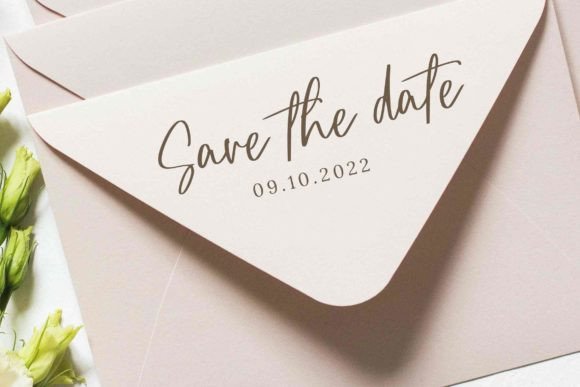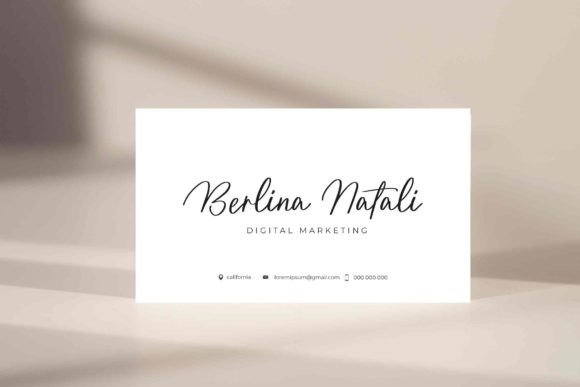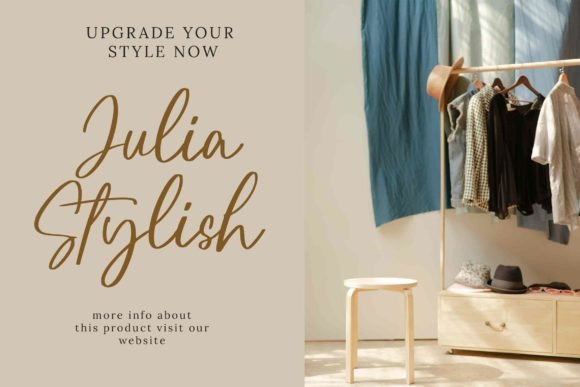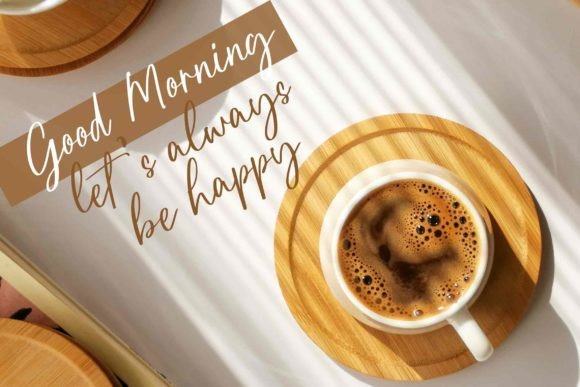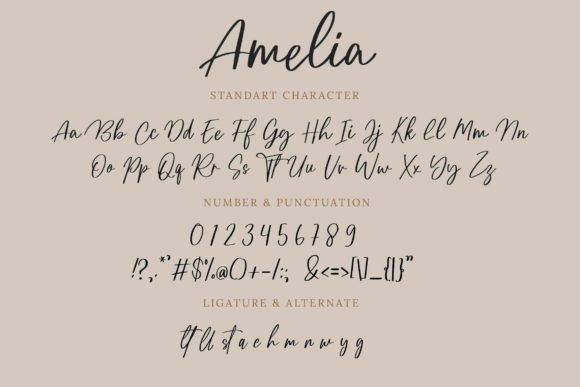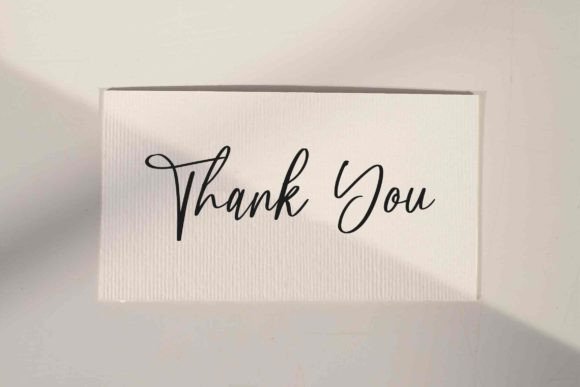
Amelia Font
About Amelia Font
Amelia is a neat and casual handwritten script font that blends charm, clarity, and modern elegance. With its smooth curves and friendly design, this font brings a relaxed yet polished feel to any creative project. Whether you’re designing for personal or professional use, Amelia will easily adapt and enhance your message with grace.
It mimics real handwriting with a clean baseline, making it both authentic and highly legible. Amelia’s style is casual but never careless—perfect for designers who want a balance between expressive personality and functional readability.
Versatile for All Creative Uses
Amelia’s adaptable nature makes it suitable for a wide range of applications. Whether you’re crafting digital content or printed materials, this font will give your project a personal, warm touch.
Here are a few great use cases:
• Wedding Invitations & Save-the-Date Cards – Soft, romantic, and refined
• Social Media Graphics & Quotes – Eye-catching and engaging
• Branding & Logo Design – Adds a signature, handwritten flair
• Business Cards & Stationery – Clean yet unique for professional identities
• Greeting Cards & Gift Tags – Delivers sincerity and charm
• Journals & Notebooks – Perfect for lifestyle or creative writing products
• T-Shirts, Stickers, and Merchandise – Adds character to any physical item
The font’s neat appearance ensures it works just as well in larger display sizes as it does in smaller text blocks.
Features of Amelia Font
• Uppercase and lowercase letters
• Numbers and punctuation marks
• Multilingual support
• Smooth connections and consistent spacing
Why Choose Amelia?
Amelia stands out for its versatility and ease of use. It doesn’t try too hard—its subtle elegance and natural flow make it a solid choice for almost any theme or niche. It feels fresh and modern while still embracing the charm of handwritten type.
Because of its clean and tidy style, Amelia works beautifully as both a headline and a body font. It’s friendly without being too playful and stylish without losing its legibility. That balance is what makes it such a strong addition to any font library.
If you’re looking for a handwritten font that’s approachable, timeless, and highly usable, Amelia is the perfect match.